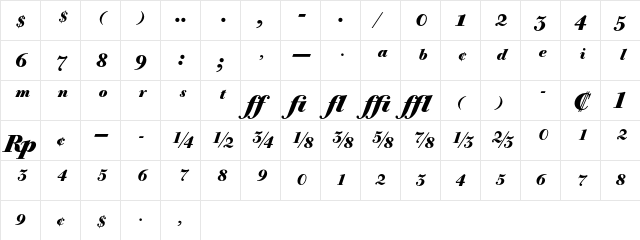
Bodoni Old Face BE Bold Italic Expert Font Preview
Design Context for Bodoni Old Face BE Typeface
Bodoni Old Face BE offers clean, dependable letterforms without strong stylistic allegiance, making it a practical choice for designers who need flexibility. The slanted form adds forward momentum and visual energy. The heavy weight commands attention and anchors typographic hierarchies.
Pro Tip: Try Bodoni Old Face BE for annotation and caption copy alongside an upright companion — the contrast in angle creates a dynamic but ordered typographic system.